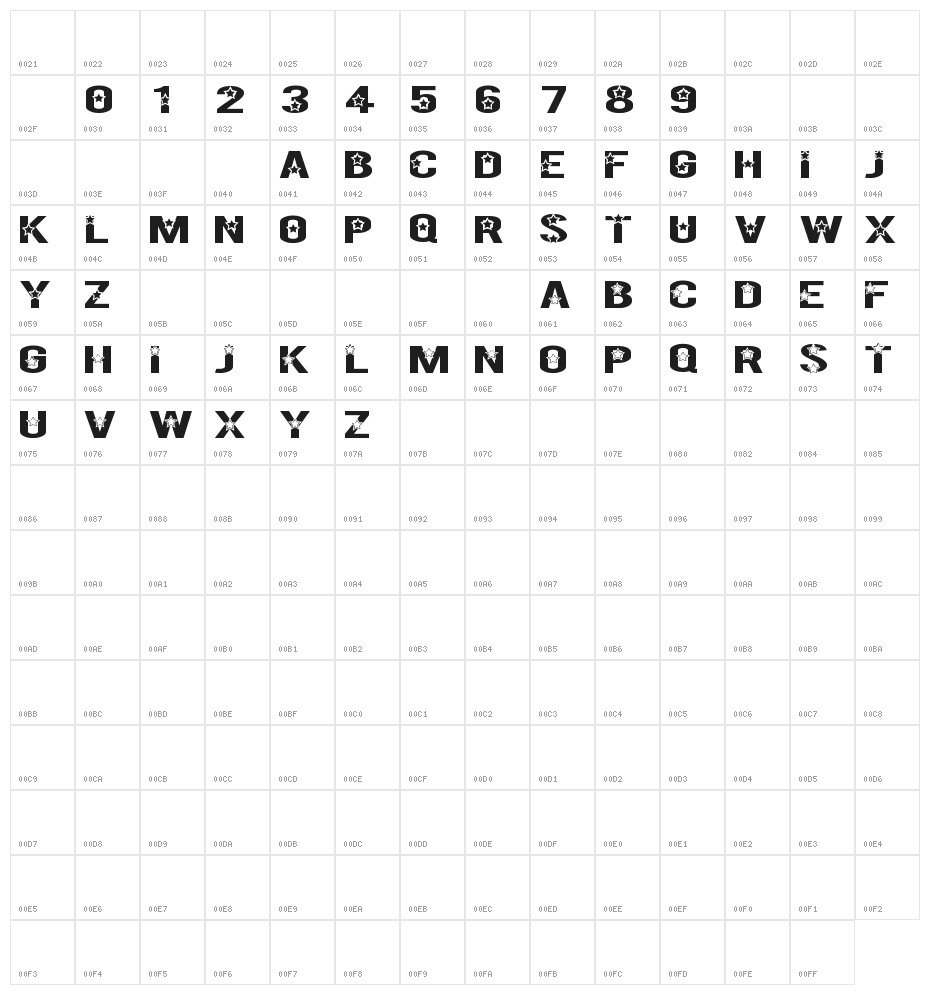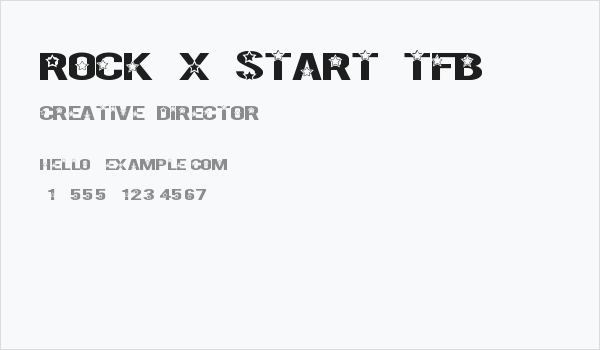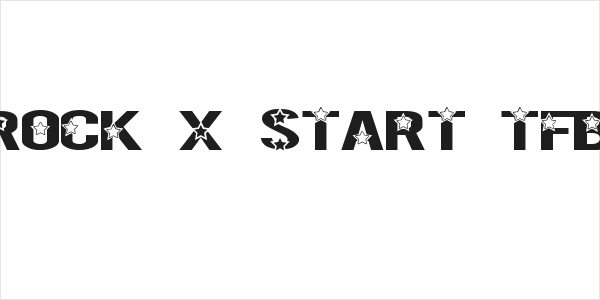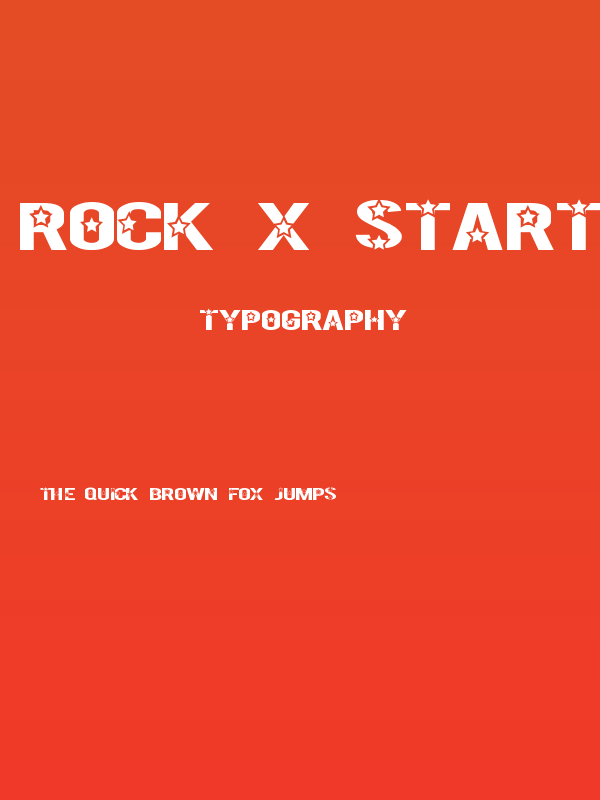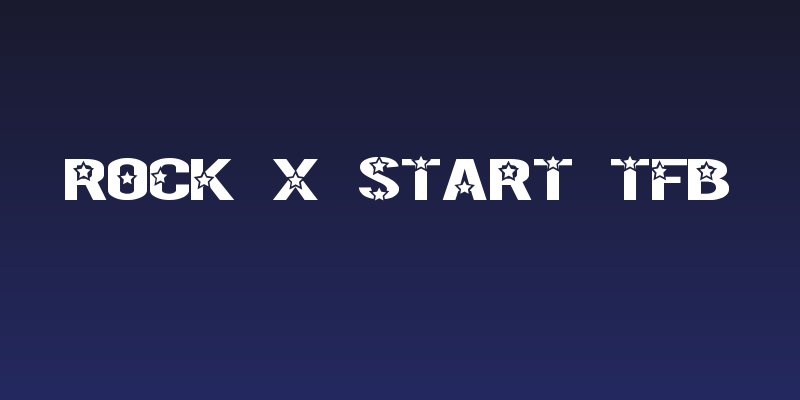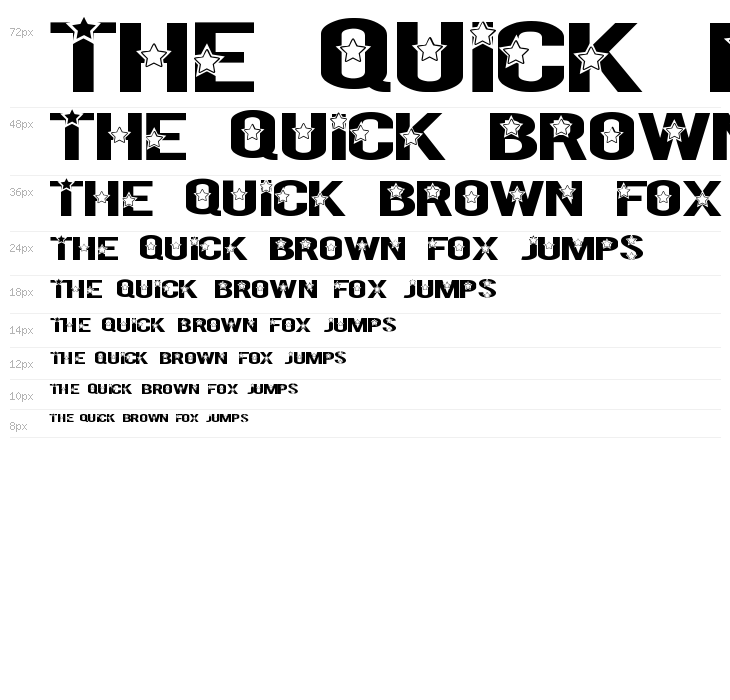
Rock X Start tfb Font
Rock X Start tfb Description
This bold and decorative font features a unique design where each character is embellished with star motifs, creating a striking and playful appearance. The uppercase letters are robust and solid, with stars integrated into the strokes, adding a whimsical touch. The numbers follow the same design principle, ensuring consistency throughout. This font is ideal for projects that require a fun and eye-catching aesthetic, such as children's event posters, party invitations, or themed merchandise. The boldness of the characters ensures high visibility, making it suitable for headlines or titles where impact is essential.